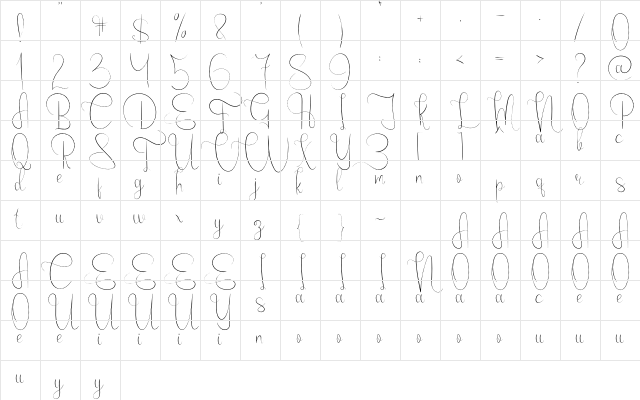
Emanuela Light is a composed and adaptable typeface that performs quietly and consistently across a wide range of design contexts. Its slender proportions lend an understated elegance to any composition.